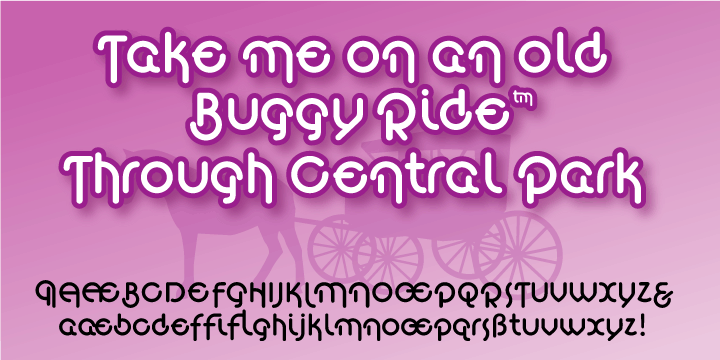
A biform type face, with open & closed rounded forms which give it a different appeal suitable for some interesting titling and short bits of copy.
Try using it for small captions, greeting cards, logos and packaging.